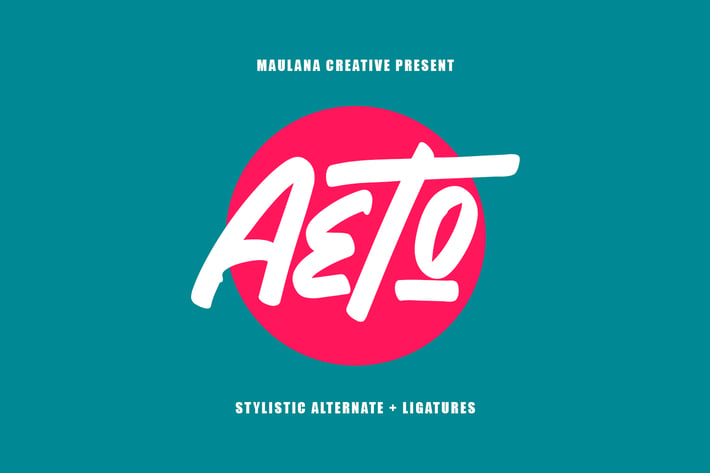
Aeto - Brush Handmade Font
Give your designs an authentic handcrafted feel. “Aeto” is perfectly suited to signature, stationery, logo, typography quotes, magazine or book cover, website header, clothing, branding, packaging design and more.